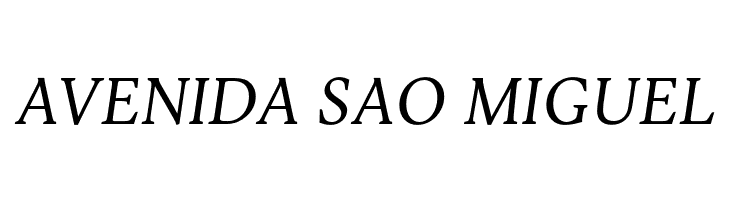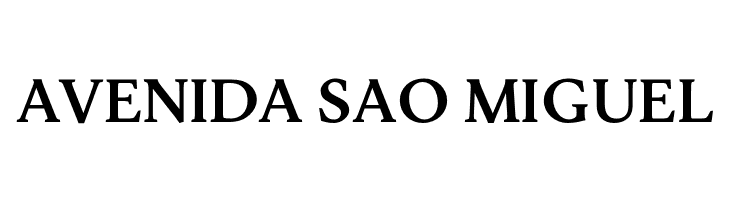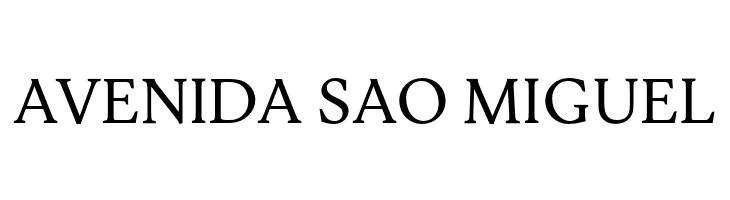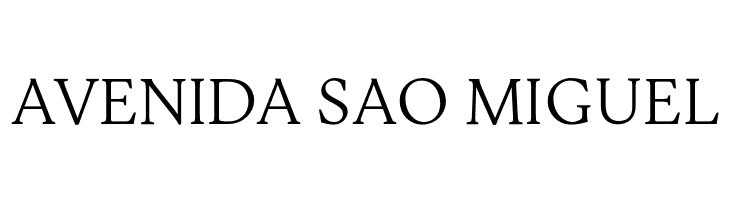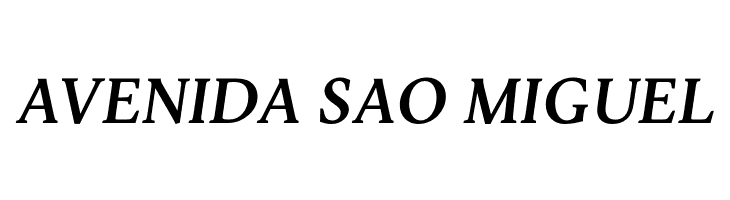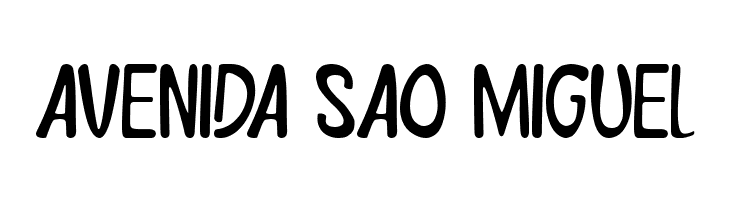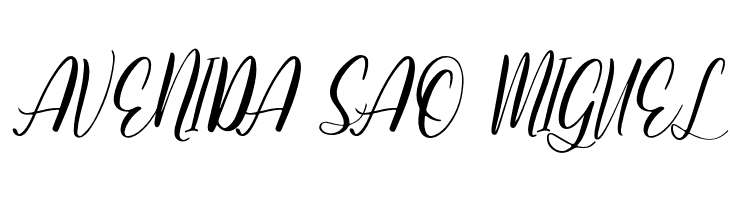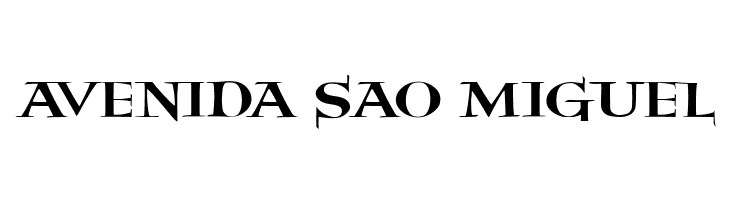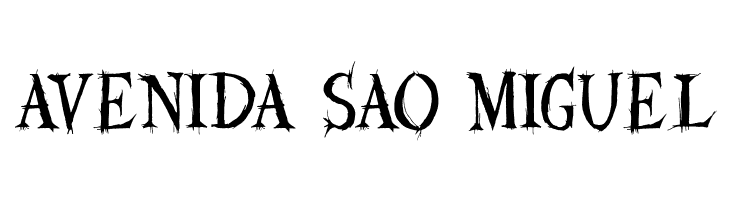
A bold, italic, and futuristic font with sharp angles and a dynamic style.
An elegant, flowing script font with a cursive style and graceful connections.
An elegant script font with flowing, interconnected letters and high contrast strokes.
A playful and whimsical handwritten font with flowing, cursive-like strokes.
A flowing, cursive font with elegant, connected letters and decorative flourishes.
A playful, bold script font with smooth, rounded characters and seamless connections.
A lively, cursive font with a handwritten, elegant style.
A bold and robust font with thick strokes and a strong presence.
A bold, classic serif font with strong, elegant strokes.
A bold, italicized font with elegant curves and strong visual impact.
An elegant serif italic font with a classic and refined style.
A classic serif font with elegant, refined characters and delicate serifs.
A light, elegant typeface with a subtle italic slant and classic serifs.
A classic serif font with elegant strokes and balanced proportions.
A playful, bold, and rounded handwritten font with a whimsical touch.
A stylish and elegant script font with flowing, cursive strokes.
An elegant, flowing script font with high contrast and ornate letterforms.
A highly stylized, decorative script font with sharp, angular strokes and dramatic flourishes.
A 3D jigsaw puzzle piece font with a playful and engaging design.
A playful 3D jigsaw puzzle piece font with bold outlines and shadowing.
A classic serif font with sharp serifs and elegant curves, offering a timeless and sophisticated look.
A decorative font with angelic figures integrated into each letter, offering a mystical and ethereal style.
A decorative serif font with ornate, wing-like embellishments.
A bold, blackletter font with intricate, medieval-inspired letterforms.
A bold, edgy font with sharp, thorn-like extensions and a gothic aesthetic.
A classic, serif font with bold, sharp serifs and a traditional aesthetic.
A classic serif font with elegant, sharp serifs and a traditional aesthetic.
A gothic-inspired font with sharp, angular edges and a medieval aesthetic.